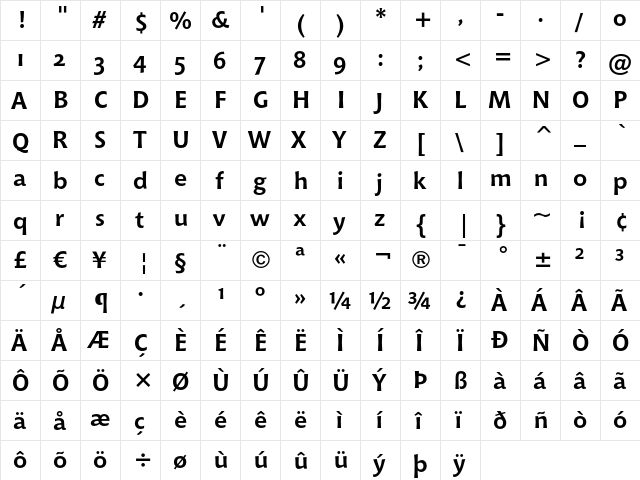
Bitstream Chianti Bold OSF
Design Context for Bitstream Chianti Typeface
Bitstream Chianti is a composed and adaptable typeface that performs quietly and consistently across a wide range of design contexts. Its bold stroke weight gives it real presence on the page.
Pro Tip: Pair Bitstream Chianti with a font of contrasting weight or personality to build a more expressive typographic hierarchy.